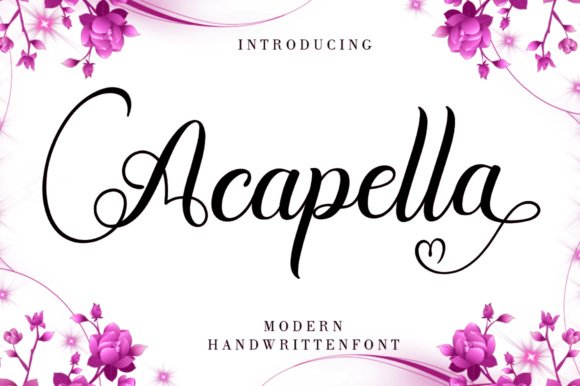
Unleash Your Creativity with the Acapella Font
Have you ever stared at a blank canvas, a blank page, or a blank screen, trying to come up with the perfect design to capture your audience’s attention? You know that moment when the creative juices start flowing, and you feel like anything is possible? That’s exactly what the Acapella Font is all about – empowering you to bring your vision to life.
The Acapella Font is a modern, handwritten font that’s perfect for a wide range of projects, from elegant wedding invitations to vibrant social media graphics. With its stunning alternates, you can reuse this font time and time again, always resulting in a unique look that’s all your own. Whether you’re a seasoned designer or just starting out, the Acapella Font is an invaluable tool that will take your designs to the next level.
Acapella Font Key Features
- Font Family: Acapella comes in two font families, Acapella and Acapella Script, each with multiple weights and styles.
- Font Size: The font is available in various sizes, ranging from 8-point to 72-point, making it suitable for a wide range of applications.
- Unique Characteristics: The Acapella font features a unique blend of modern and vintage elements, with intricate details and ornate flourishes that add a touch of elegance and sophistication.
- Resolution: Suitable for both screen and print use, with clear and legible characters at resolutions up to 1200 dpi.
Acapella Font Review
Acapella Font is a unique and expressive font that I had the chance to work with. Overall, I think it’s a solid choice for designers looking to add some flair to their projects.
- Expressive Characters**: Acapella’s letterforms are highly expressive, which makes it perfect for projects that require a touch of personality.
- High Legibility**: Despite its bold and playful nature, the font is surprisingly legible, even at smaller sizes.
- Good Compatibility**: I didn’t encounter any issues with font rendering or compatibility across different devices and browsers.
- Limited Language Support**: Acapella Font only supports a limited number of languages, which may be a concern for designers working on multilingual projects.
- Not Suitable for Body Text**: While the font is great for headings and titles, it’s not the best choice for body text due to its bold and playful nature.
Overall, I think Acapella Font is a great addition to any designer’s toolkit. While it may have some limitations, its unique character and high legibility make it a great choice for projects that require a touch of personality.
Tips for Getting the Most Out of the Acapella Font
To get the most out of the Acapella font, try the following:
- Use it in combination with bold or italic text for emphasis.
- Experiment with different font sizes to create visual interest.
- Pair the Acapella font with other fonts for a unique and creative look.
The Acapella font is commonly used for:
- Use the font for the title of the music festival, such as “Electric Vibes Music Festival” or “Summer Groove Music Festival.”
- Combine the font with bold lines and bright colors to create a visually appealing design.
- Experiment with different font sizes and arrangements to emphasize the title and create a dynamic layout.
- Use bold lines and shapes to create a sense of movement and energy.
- Combine the font with bright and bold colors to create a lively atmosphere.
- Experiment with different textures and patterns to add depth and interest to the design.
- Use the font to create the group’s name, such as “Harmony” or “Pitch Perfect.”
- Combine the font with a stylized musical note or other musical element to create a cohesive design.
- Experiment with different font sizes and arrangements to emphasize the group’s name and create a dynamic logo.
- Acapella Font FAQs
Q: What font styles are available in the Acapella Font family?
3 Creative Project Ideas using Acapella Font
Project 1: Music Festival Poster
Create a vibrant and energetic music festival poster using the Acapella Font. This font is perfect for music-related projects due to its musical and lively feel.
Project 2: Acapella Group Logo
Create a unique and memorable logo for an acapella group using the Acapella Font. This font is perfect for music-related projects due to its musical and lively feel.